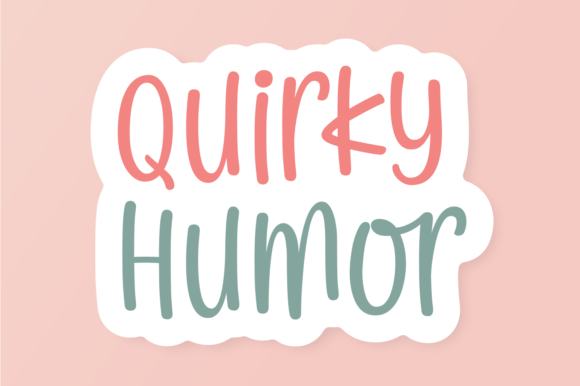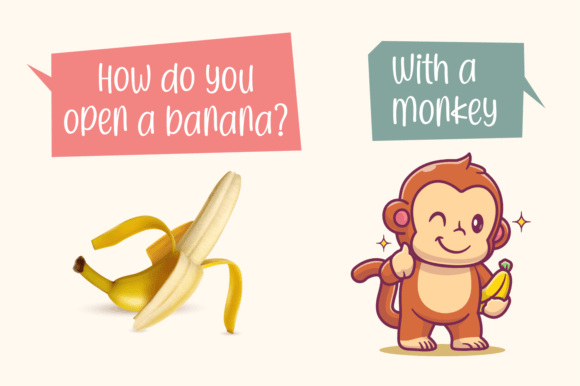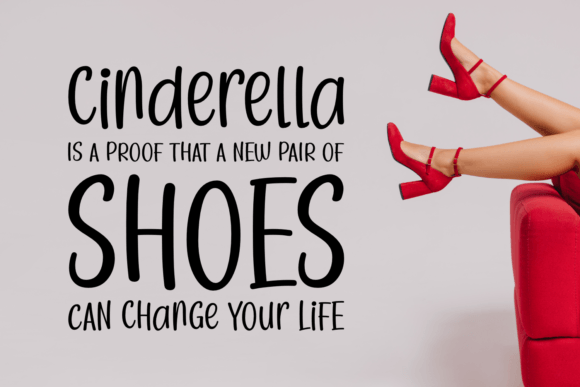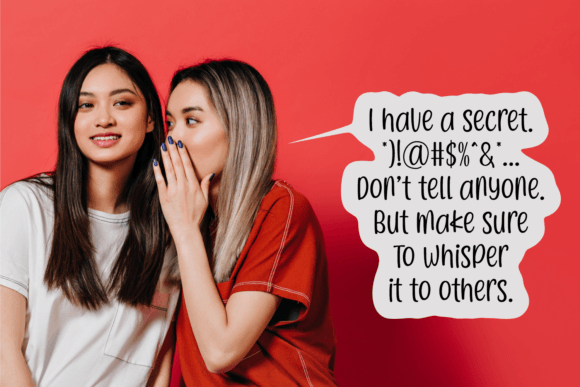
Quirky Humor Font
About the Quirky Humor Font
Introducing the Quirky Humor Font, a beautifully crafted typeface designed to elevate your creative projects. Quirky Humor is a fun and whimsical handwritten font. Whether you’re using it for crafts, digital design, presentations, or making greeting cards, this font has the potential to become your favorite go-to font, no matter the occasion!
Its playful, handwritten style makes Quirky Humor ideal for headlines, short text blocks on posters or social media graphics, and branding elements requiring a lighthearted touch. It works exceptionally well for projects targeting younger audiences or those with a fun, informal brand personality. Avoid using it for body text or lengthy paragraphs; its informal nature compromises readability at smaller sizes.
Pairing Quirky Humor with a clean sans-serif like Open Sans for body copy creates a strong visual contrast and balanced aesthetic. For a more sophisticated feel, consider a classic serif font such as Garamond for supporting text; this juxtaposition adds visual interest without overwhelming the quirky personality of the primary font.
The font’s overall personality is undeniably friendly and informal, conveying a sense of lightheartedness and approachability. It’s best suited for brands and projects that value a playful and approachable image.
Quirky Humor Font Usage Examples
Quirky Humor Font Example